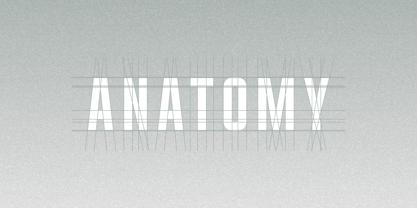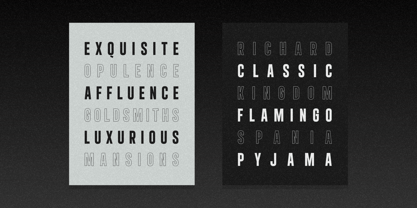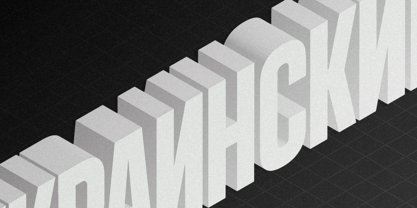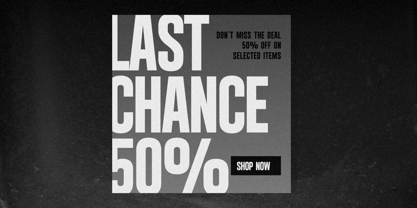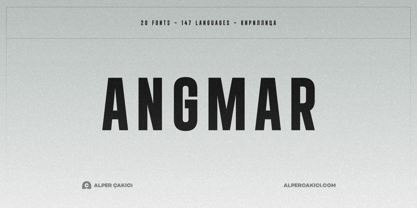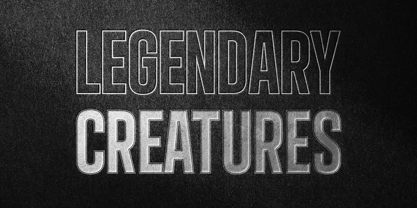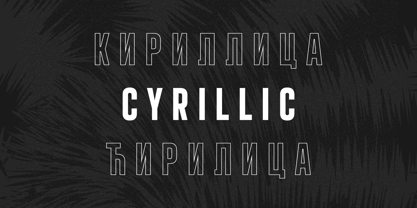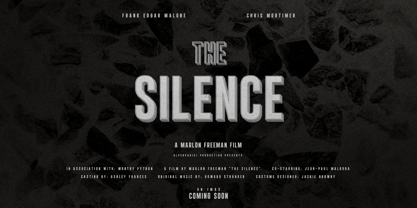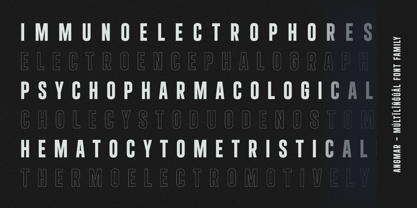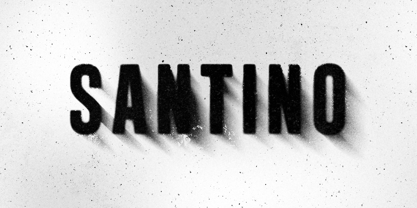
Angmar
The Angmar Font Family was designed by Alper Çakıcı and published by AlperCakici. Angmar contains 20 styles and family package options.
Angmar is a geometric sans with attitude — clean, confident, and crafted for impact. Its rounded precision and sharp structure strike the perfect balance between modern minimalism and bold visual power. With 20 meticulously designed styles, Angmar offers limitless creative freedom — from sleek inline and outline cuts to commanding ultra-black weights. Whether for print or digital, it delivers exceptional clarity and style for logos, headlines, posters, packaging, and branding. Every curve and counter is shaped for visual harmony — balanced proportions, smooth connections, and a refined edge that shines in any layout. ✨ What’s inside: • 20 fonts — Inline, Outline, Regular, Rimmed, Rounded, Stroke, and matching Italics • Clean geometric construction with a smooth, modern aesthetic • Perfect for bold titles, elegant headers, and timeless visual identities • Supports 147 languages, including full Cyrillic coverage Angmar features precise kerning and carefully tuned spacing for professional-quality typography in every context. Its design blends classic proportions with a contemporary geometric feel, creating a typeface that’s both versatile and distinctive. Built for designers who value precision and personality, Angmar is ready to make a statement — wherever strong, modern typography is needed.